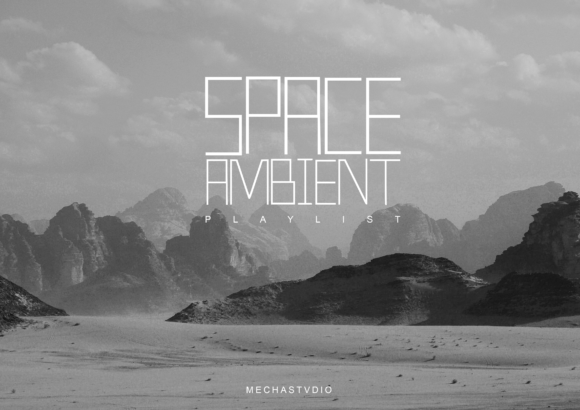
Introduction to Electromecha Font
Electromecha is a simple, modern, and clean custom display font.
Its unique style is perfect for all your projects as it has the potential to transform them into a true standout .